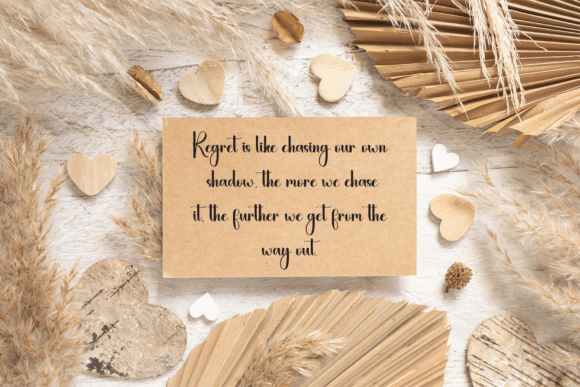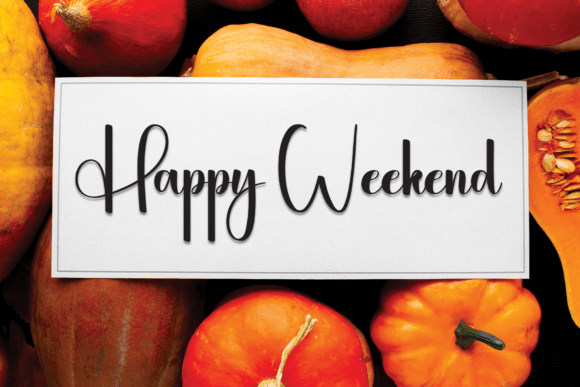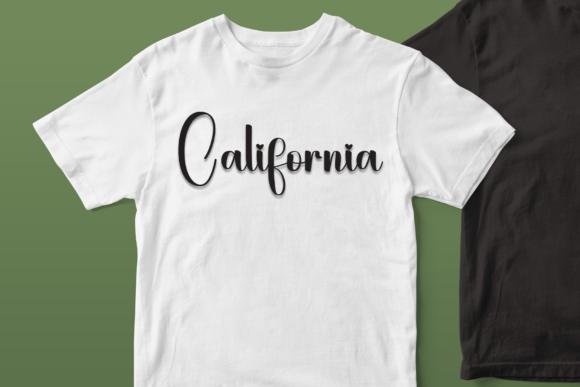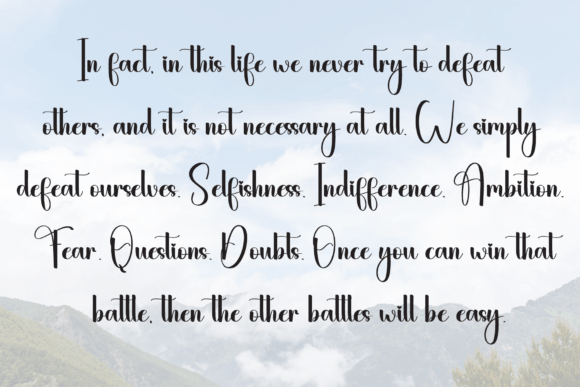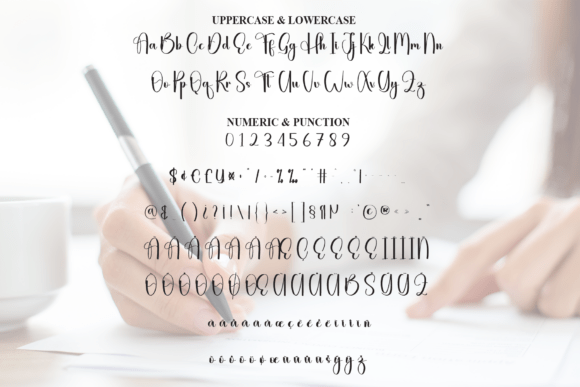
Introducing Autography Font: Elevate Your Designs with Luxurious Curves and Handwritten Elegance
Are you looking for a font that exudes sophistication, elegance, and a touch of personal flair? Look no further than Autography, a refined script font that is perfect for signatures, branding, and stylish invitations. With its luxurious curves and smooth connections, Autography gives your text a polished look that’s reminiscent of a signature, but with a level of refinement that’s hard to match.
The Characteristics of Autography Font
Autography is a script font that boasts a range of characteristics that make it perfect for designers and crafters looking to add a touch of elegance to their work. Some of its key features include:
• Luxurious curves: Autography’s curves are smooth, flowing, and luxurious, giving your text a sense of sophistication and refinement.
• Handwritten elegance: Despite being a digital font, Autography has a distinctly handwritten feel that’s perfect for adding a personal touch to your designs.
• Graceful loops: Autography’s loops are long and flowing, adding a sense of movement and fluidity to your text.
• Smooth connections: The connections between letters are smooth and seamless, giving your text a polished, refined look.
Uses for Autography Font
Autography is a versatile font that can be used in a range of design applications, including:
• Signatures: Autography is perfect for creating custom signatures that exude elegance and sophistication.
• Branding: Use Autography to create a luxurious brand identity that sets your business apart from the competition.
• Invitations: Whether you’re planning a wedding, birthday party, or other special occasion, Autography is a great choice for creating stylish, elegant invitations.
• Stationery: Add a touch of luxury to your stationery with Autography, perfect for creating custom letterheads, business cards, and more.
Tips for Using Autography Font
To get the most out of Autography, here are a few tips to keep in mind:
• Use it sparingly: Autography is a luxurious font that’s best used sparingly. Use it for headings, titles, or signatures, but avoid overusing it in your design.
• Pair it with a sans-serif font: For body text, pair Autography with a clean, sans-serif font to create a striking contrast.
• Experiment with colors: Autography looks great in a range of colors, from rich blacks and blues to metallic golds and silvers.
Autography is a refined script font that offers a unique combination of luxurious curves, handwritten elegance, and polished sophistication. Whether you’re a designer, crafter, or simply someone who appreciates beautiful typography, Autography is a great choice for adding a touch of elegance to your work. With its range of uses and versatility, Autography is sure to become a go-to font in your design arsenal.